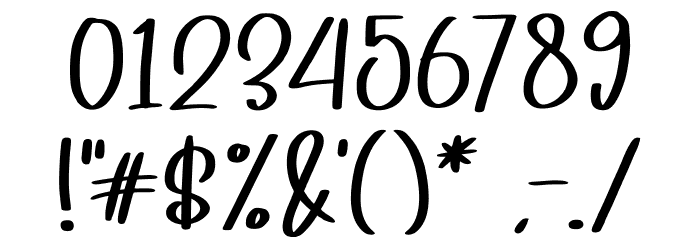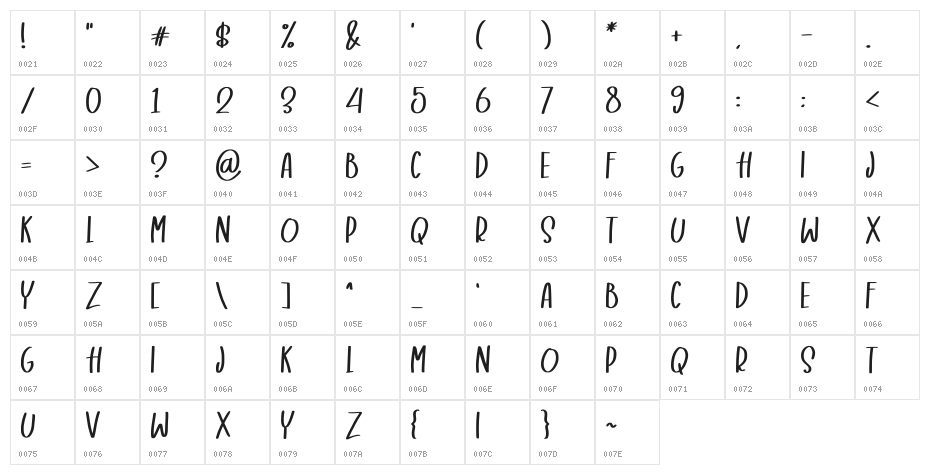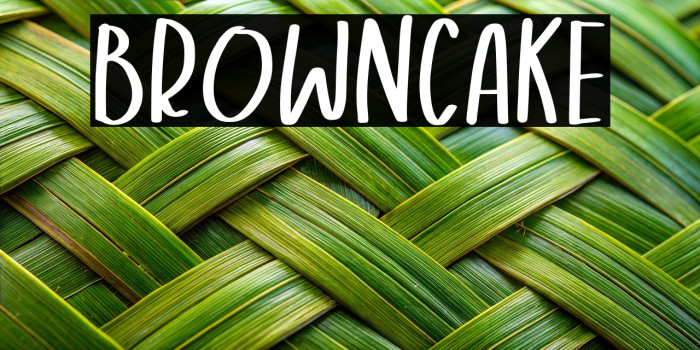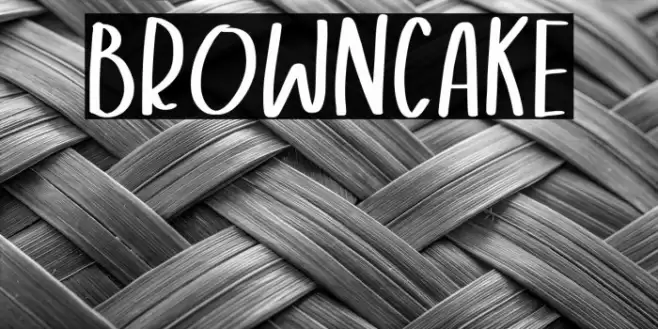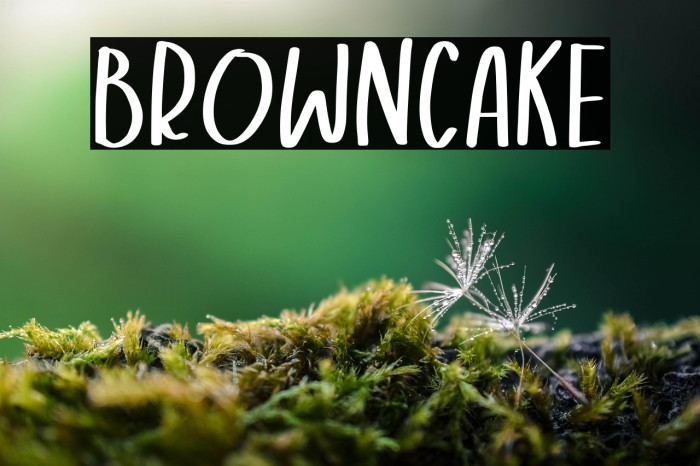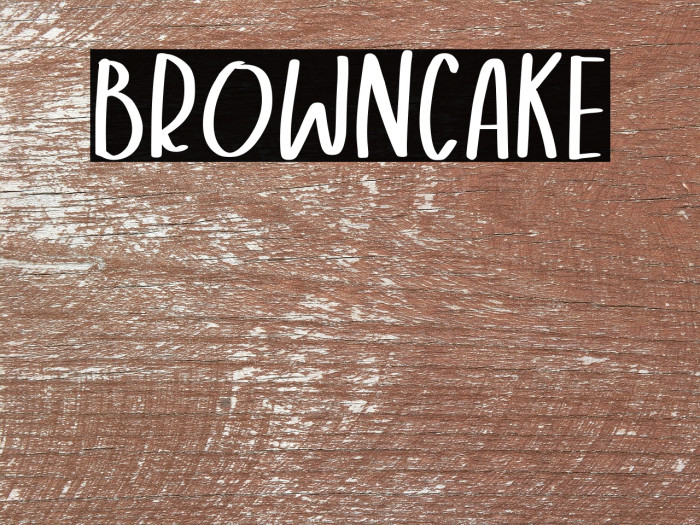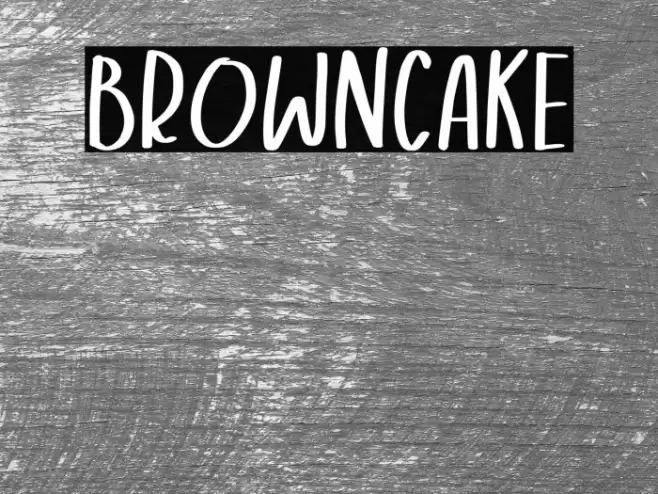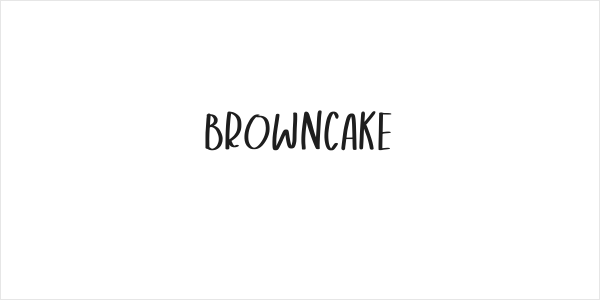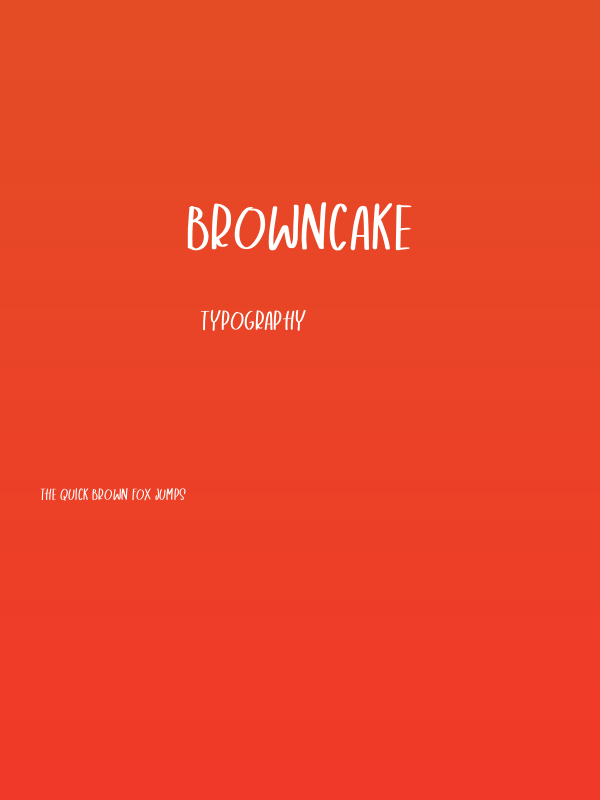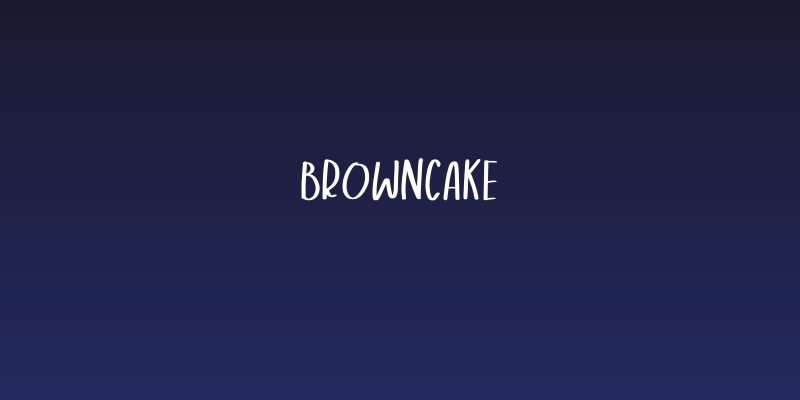
Browncake Font
Browncake Description
This font features a playful and casual handwritten style, characterized by its smooth curves and slightly irregular strokes that give it a friendly and approachable appearance. The letters are tall and narrow, with a consistent stroke width that maintains readability while adding a touch of whimsy. The uppercase and lowercase letters are well-balanced, and the numbers and special characters complement the overall style, making it versatile for various design needs. Its informal aesthetic makes it suitable for projects that aim to convey warmth and creativity.
| Proposed Projects | Ideal for greeting cards, children's books, casual branding, and social media graphics. |